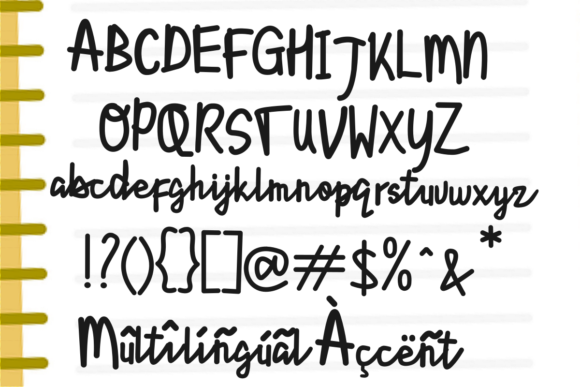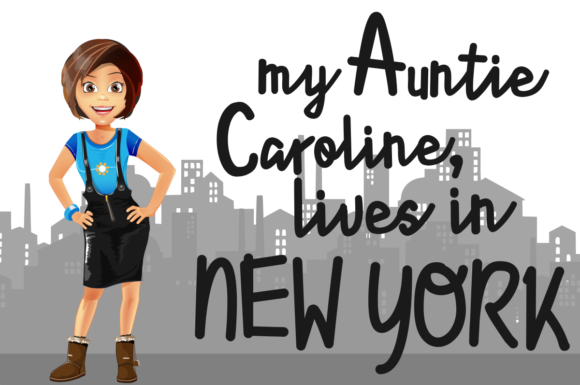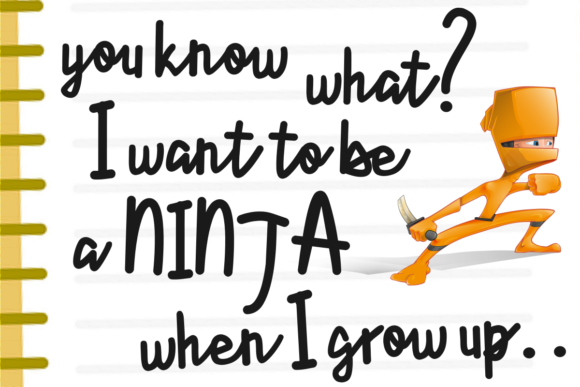
Introduction to Lyonetta Handwriting Font
Lyonetta Handwriting feels equally charming and fun.
It features an incredibly classic style, while still keeping a friendly feel Lyonetta Handwriting is the perfect font for making original and outstanding designs.
Key Features of Lyonetta Handwriting Font
Why Choose Lyonetta Handwriting Font?